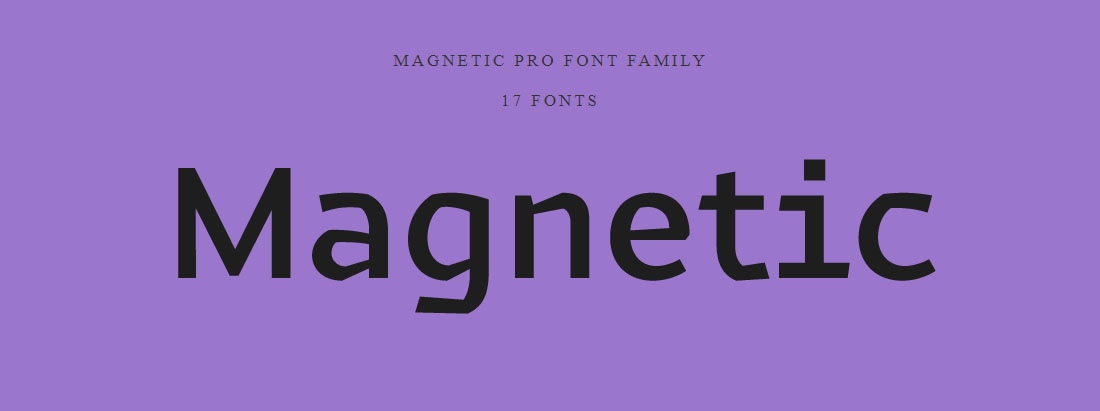
Magnetic Pro Font
Magnetic Pro Font is perfect for dynamic advertising campaigns, energy drink branding, sports team logos, fitness center marketing, action movie titles, tech startup identities, motivational posters, high-impact headlines, entertainment promotions, and powerful brand statements.
What makes Magnetic Pro Font exciting is its irresistible attraction that draws attention through bold, energetic letterforms designed to captivate and engage audiences instantly. This powerful typeface combines magnetic appeal with professional precision, creating a commanding personality that communicates energy, confidence, and unstoppable momentum. The font's dynamic character and compelling presence make it perfect for brands seeking to create immediate impact and memorable impressions in competitive markets.
The Magnetic Pro Font family includes Regular, Bold, Light, Heavy, Condensed, Extended, Italic, and Ultra variants. Each weight maintains the font's magnetic character while providing comprehensive design flexibility for high-impact brand identity systems and attention-grabbing creative applications across diverse media platforms.
Whether you're developing dynamic brand identities, creating high-impact advertising materials, designing sports marketing campaigns, or building energetic promotional content, Magnetic Pro Font delivers unmatched magnetism and compelling appeal. Its powerful presence makes it perfect for fitness brands, energy companies, entertainment venues, and action-oriented businesses seeking magnetic representation.
The font's dynamic geometry and bold proportions ensure maximum impact across all high-energy applications while maintaining excellent readability. Each letterform has been engineered to create instant attraction and memorable visual impact that resonates with audiences seeking excitement, energy, and powerful experiences.
This versatile typeface excels in attention-grabbing brand environments, offering designers the magnetism needed for comprehensive dynamic brand communication strategies. The extensive character set includes powerful alternates, energetic ligatures, and dynamic symbols for high-impact market positioning and compelling brand storytelling.
Establish your magnetic presence with typography that attracts attention and creates unstoppable momentum.